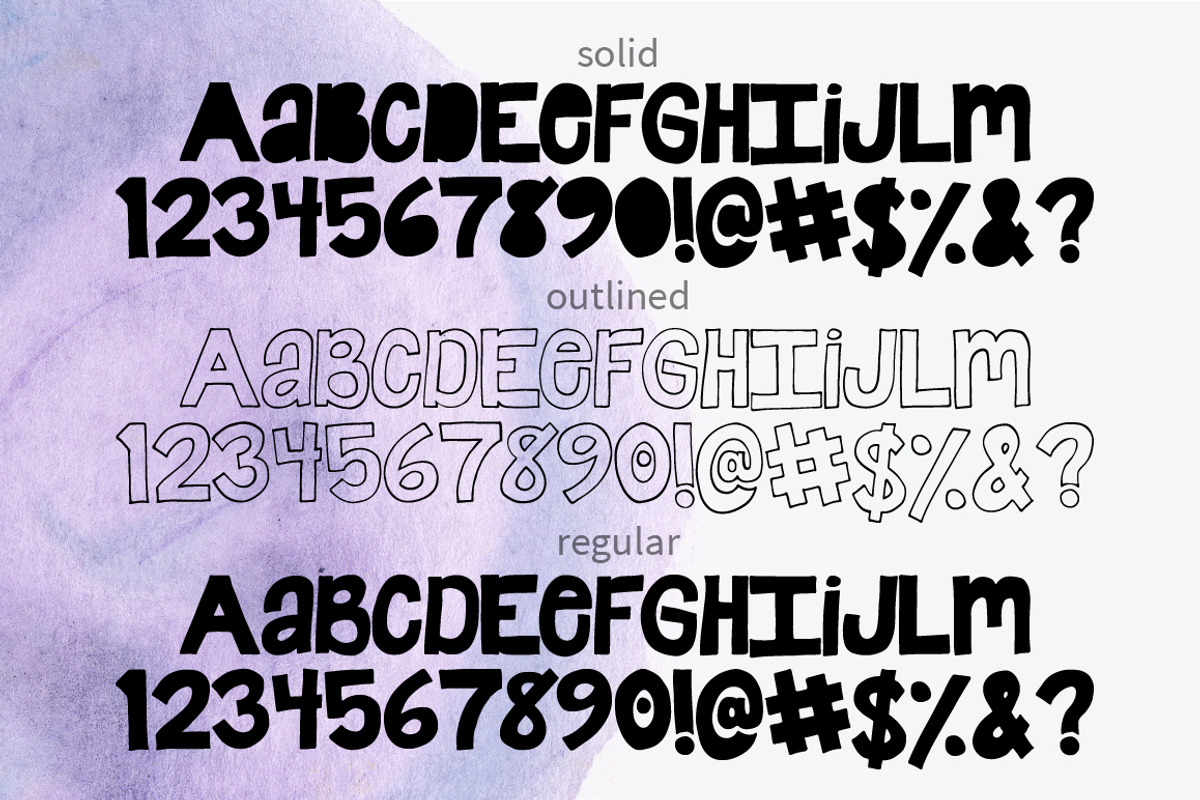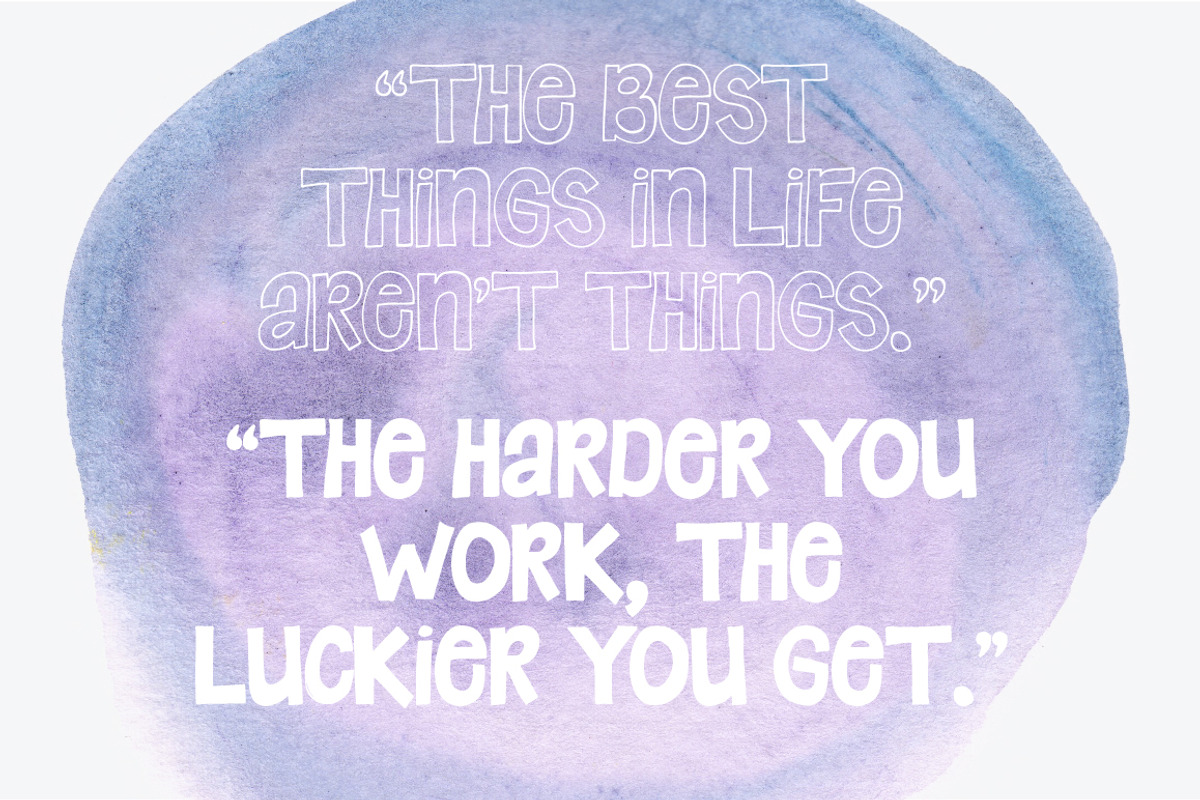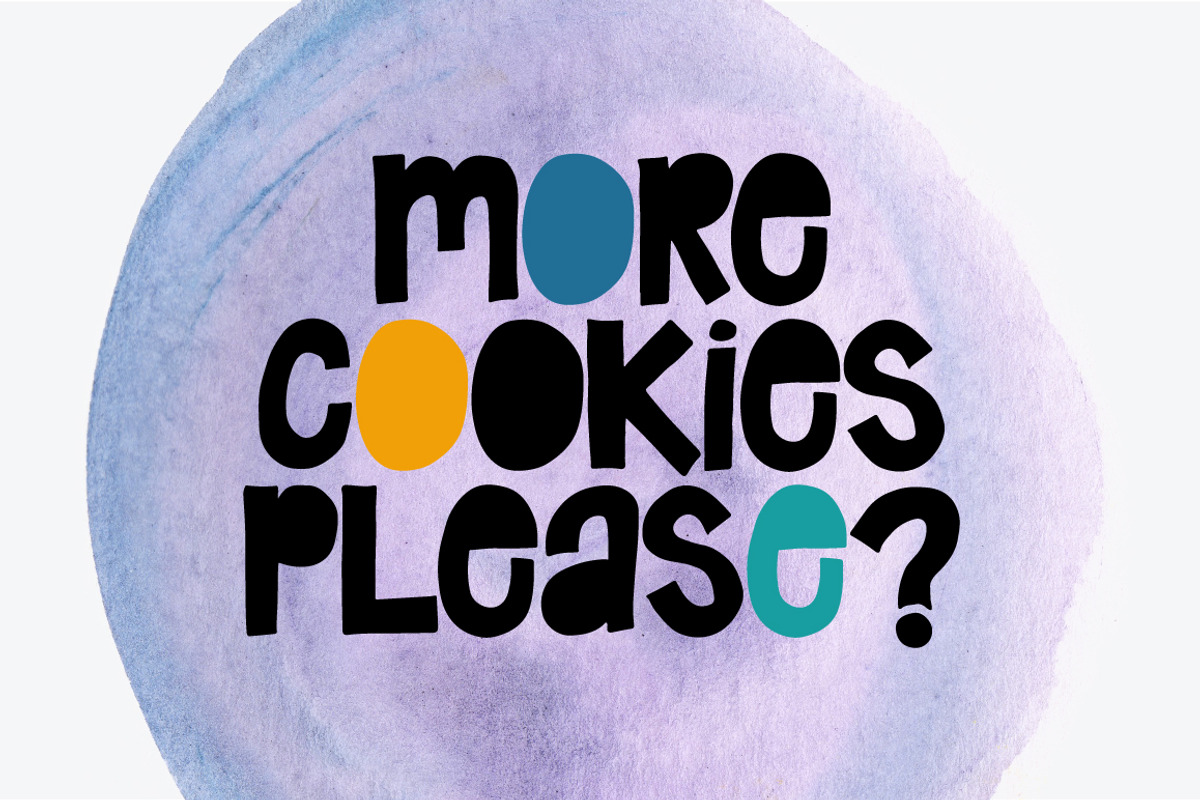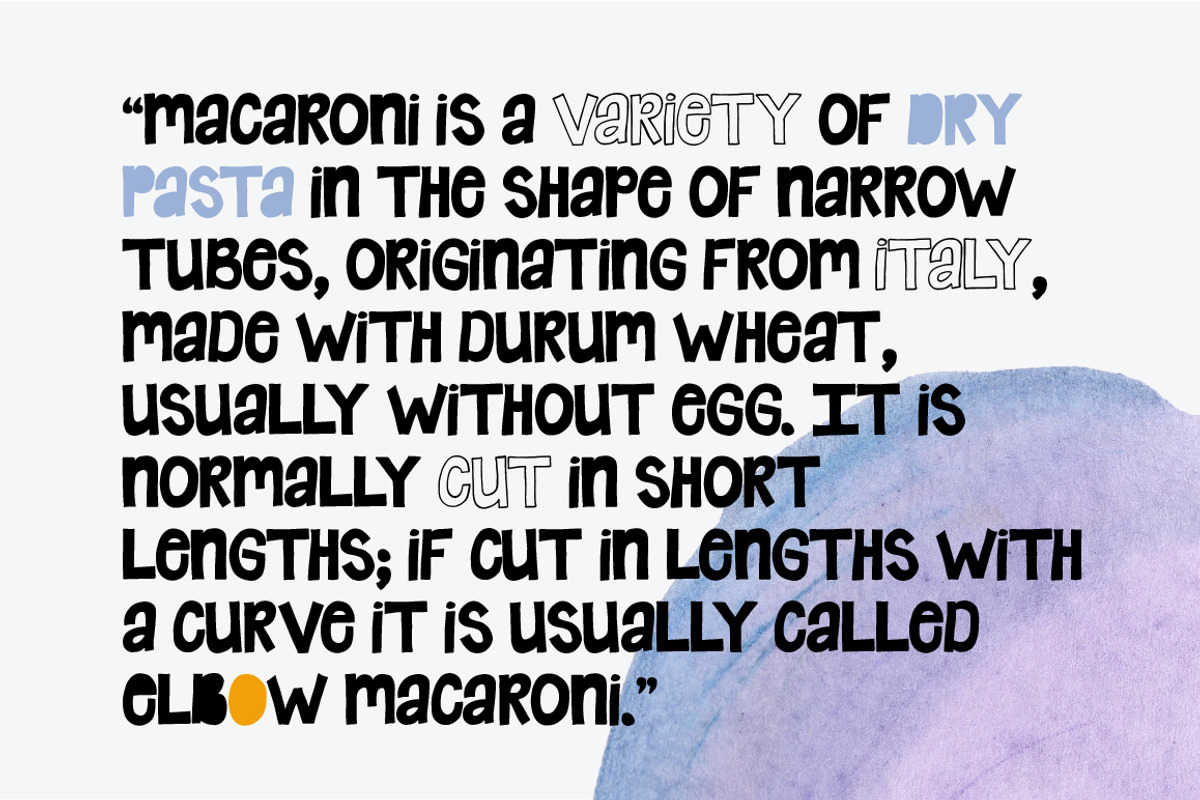
Elbow Room Font
Elbow Room Font by Hello Brio is a font selected for branding, posters, packaging, typography.
- This mostly uppercase-font is a great way to add a hand drawn lettering touch to your designs, whether you use it on the web, on a printable
- The font was carefully created by hand using ink and features a comprehensive set of glyphs including uppercase, lowercase, numeric, and sym
- Elbow Room Regular
- Elbow Room Outlined
- Elbow Room Solid
Why Elbow Room Font is worth a look
Elbow Room Font by Hello Brio fits naturally into Branding, posters, packaging, typography.